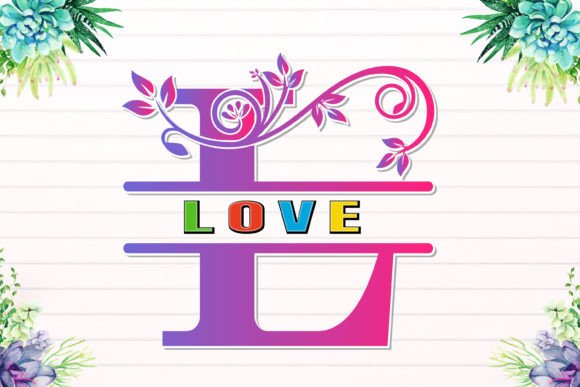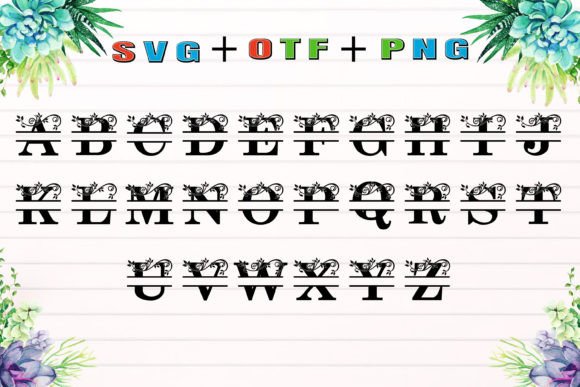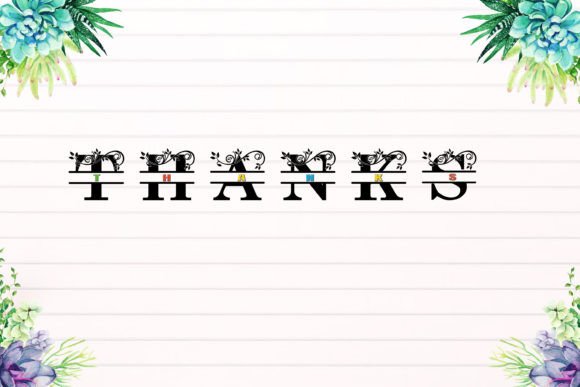
Introduction to Rb Monogram Font
Have you ever stumbled upon the perfect font that instantly elevates your design project, giving it a unique charm and personality? For designers, this is a moment of pure magic, and we’re excited to share with you a new addition to your design arsenal – the vibrant and whimsical Rb Monogram Font.
This delightful font is not just a pretty face; it’s a valuable resource for designers looking to add a touch of sophistication and playfulness to their creative projects. With its high-quality design and transparent background, you can easily integrate it into your work, whether it’s a branding initiative, packaging design, or a wedding invitation.
- Features a unique, elegant monogram design with a transparent background
- Perfect for adding a touch of sophistication to wedding invitations, social media graphics, and other design elements
- Includes a range of customizable options to suit various design needs and preferences
Honest Review: Rb Monogram Font
I recently had the chance to work with the Rb Monogram Font for a creative project, and I was impressed with its high quality and versatility. The font is a great addition to any design resource collection.
- Limited language support, which may not be ideal for international design projects
- Some users may find the font’s monogram style to be too ornate or busy for certain design applications
Overall, I was pleased with the Rb Monogram Font’s performance in my design project. Its high quality, ease of use, and free download option make it a valuable resource for designers. While it may have some limitations, I believe it’s a solid choice for creative projects that require a unique, high-end font.
The Rb Monogram Font is perfect for a variety of creative projects, including wedding invitations, business cards, and social media graphics. Its high-quality design and elegant look make it an ideal choice for designs requiring a touch of sophistication.